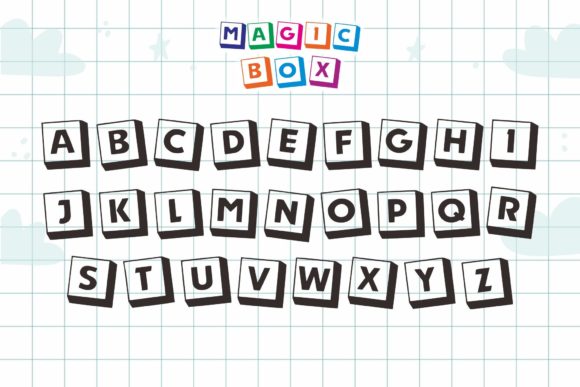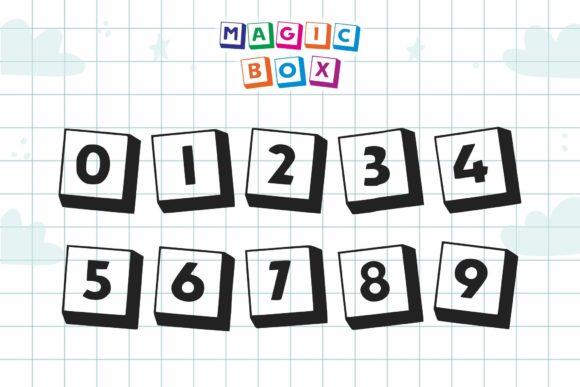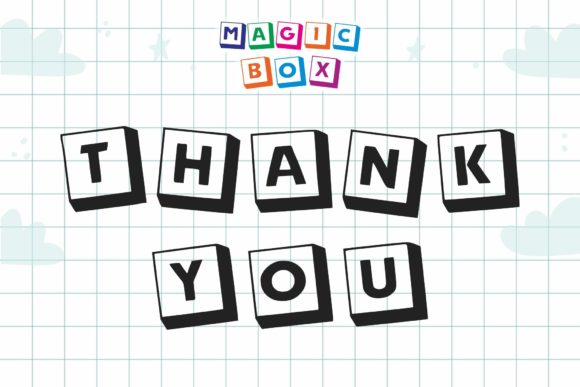
Introduction to Magic Box Font
You’ve been working on a creative project for hours, pouring your heart and soul into it, and just as you’re about to wrap it up, you realize that it’s missing that special something. You need a unique touch, a design element that will make your project stand out from the crowd. This is where the Magic Box Font comes in – a high-quality, decorative font that will add a touch of magic to your work.
As a designer, you’re always on the lookout for valuable resources that will help you elevate your projects. The Magic Box Font is a game-changer, offering a transparent background that will allow you to customize it to fit your design needs. Whether you’re working on prints, digital art, or any other creative project, this font is a must-have in your design arsenal.
Key Features of Magic Box Font
- Transparent background option for seamless integration with creative projects
- High-quality design resource suitable for a variety of applications, including digital and print media
- Includes 6 unique font styles with varying levels of opacity and texture
- Designed with a resolution of 300 DPI for optimal print quality
- Font size ranges from 12pt to 72pt, allowing for flexibility in creative projects
- Perfect for designers and artists working on creative projects, ideal as a design resource
Honest Review: Magic Box Font
As a designer, I’m always on the lookout for high-quality design resources that can elevate my creative projects. Recently, I had the chance to experiment with the Magic Box Font, and I’m excited to share my honest review with you.
- High-quality design: The Magic Box Font boasts crisp, clear lines and a smooth texture that makes it perfect for use on various backgrounds.
- Transparent background: I love that the font has a transparent background, which makes it easy to layer over other design elements and images.
While the Magic Box Font is a great addition to any design resource library, I did notice a few limitations:
- Limited character set: The font doesn’t have a comprehensive character set, which can make it difficult to use for longer text blocks.
- No italic or bold options: Unfortunately, the Magic Box Font doesn’t come with italic or bold variations, which can limit its versatility.
Overall, I’m impressed with the Magic Box Font’s potential, but I hope to see future updates that address these limitations. For now, it’s a great choice for small-scale design projects or as a complementary font for more complex designs.
Tips for Getting the Most Out of Magic Box Font
The Magic Box Font is suitable for a wide range of creative projects, including logos, brochures, business cards, and social media graphics. It’s also great for designing presentations, reports, and documents that require a professional and stylish look.